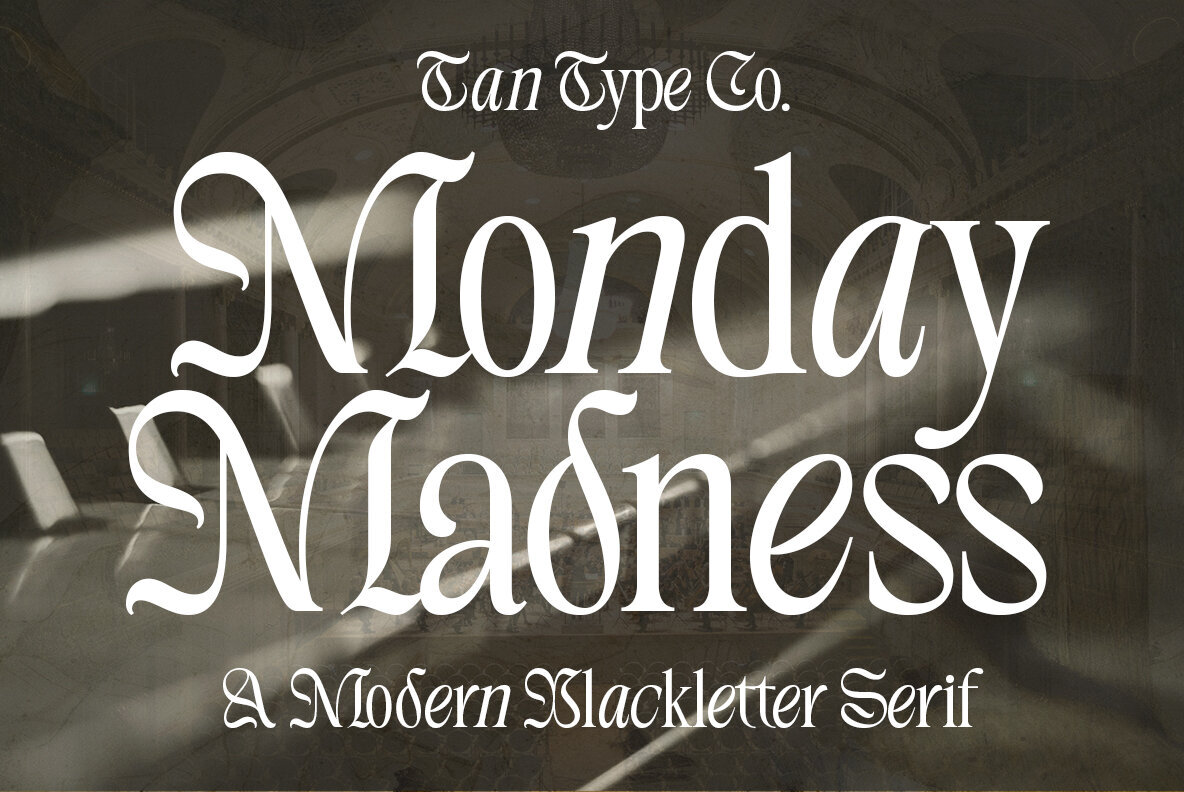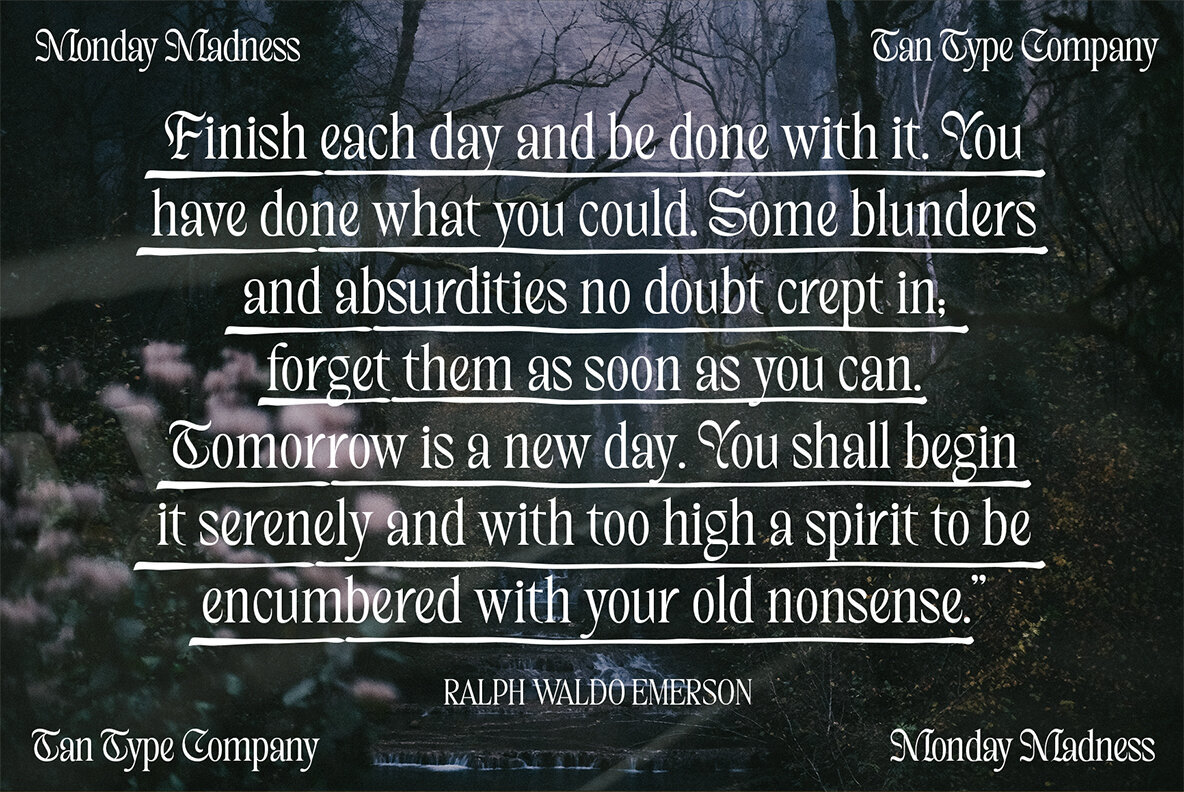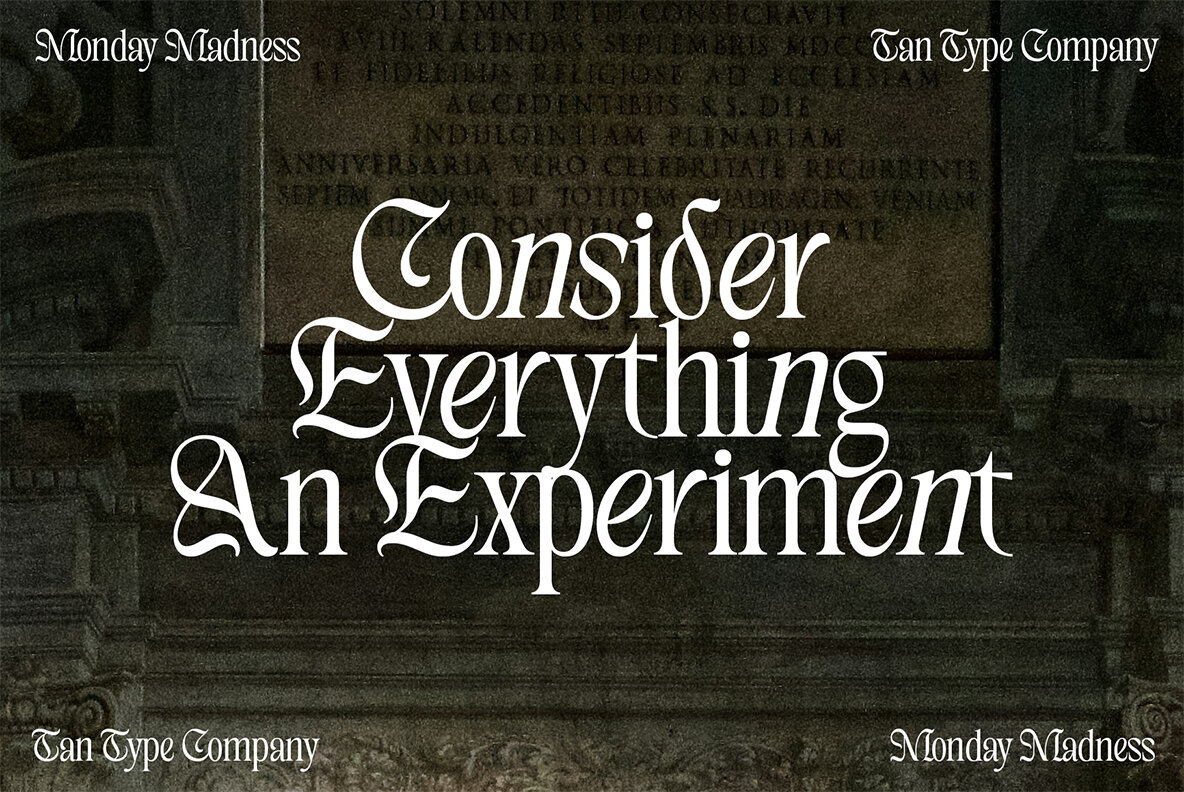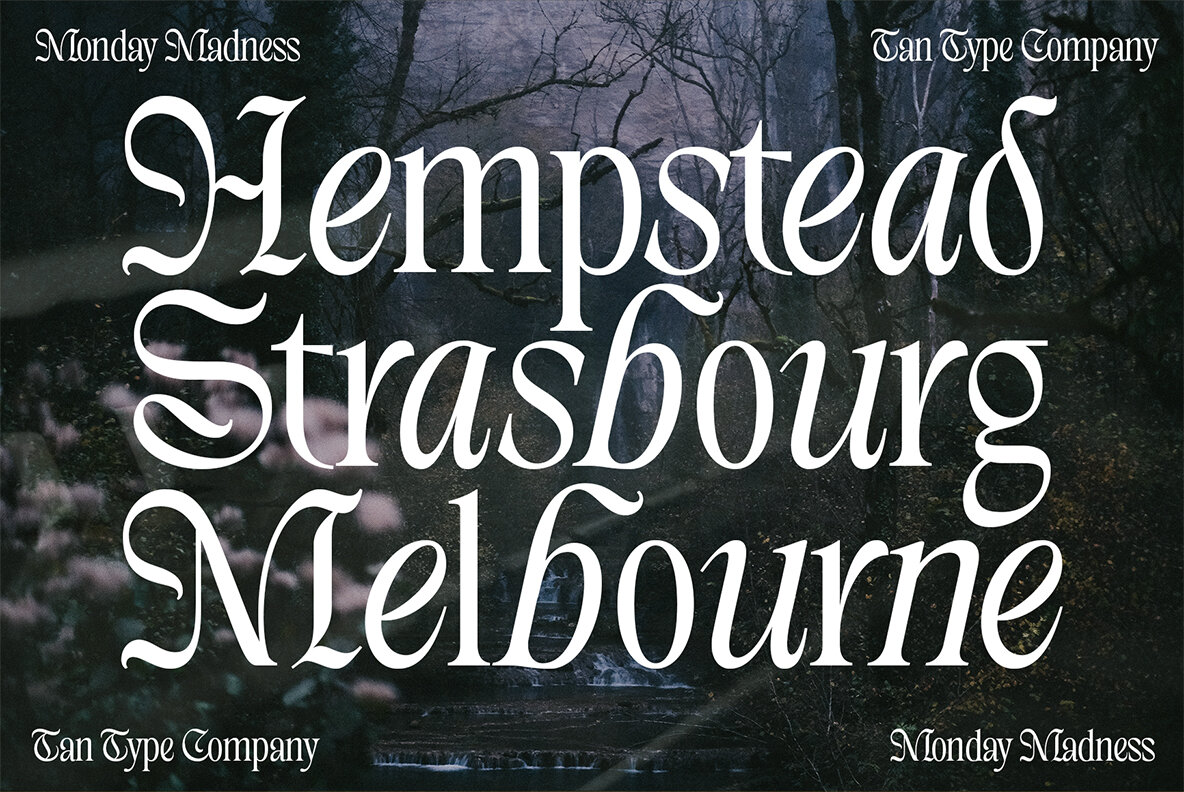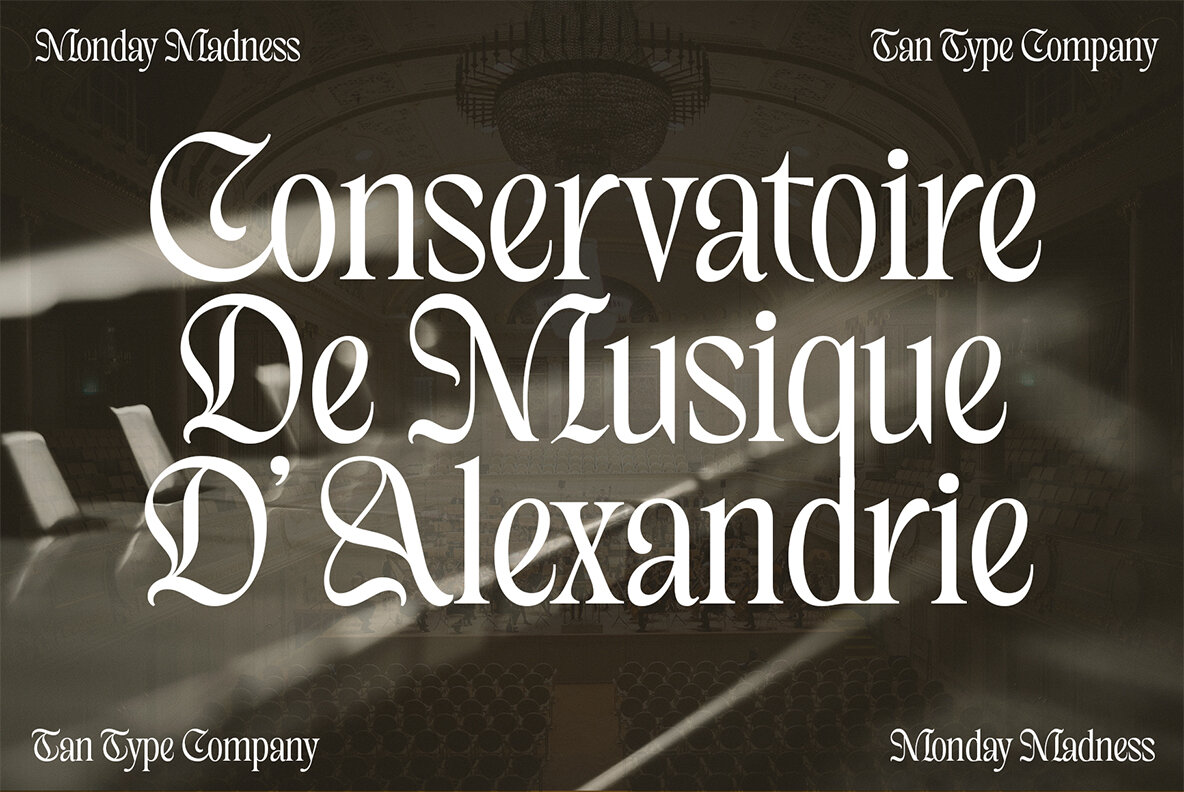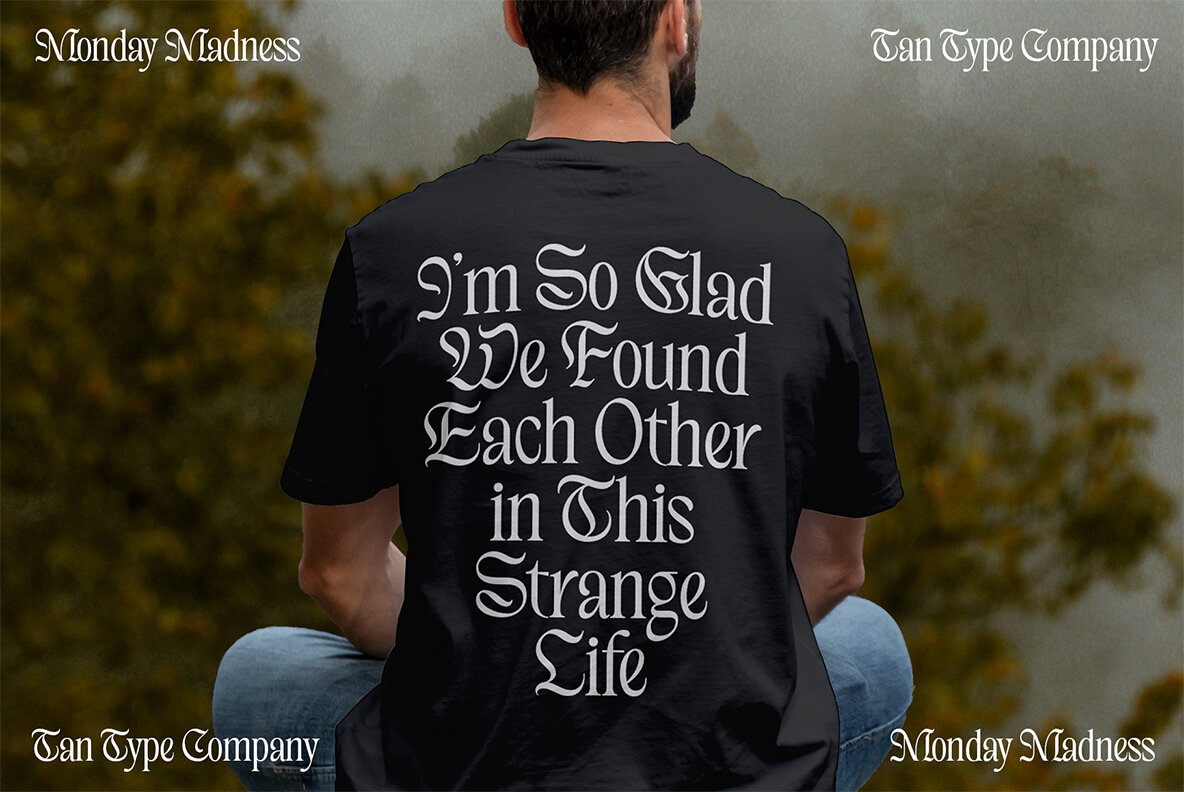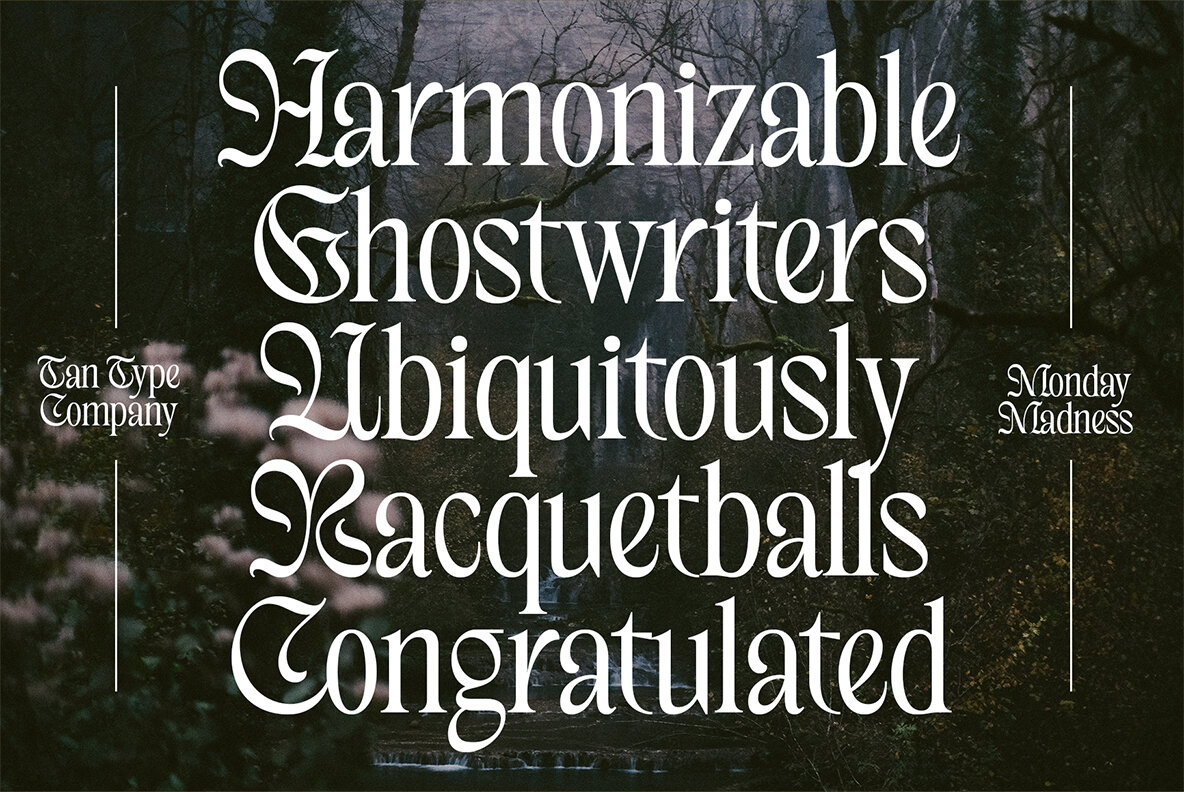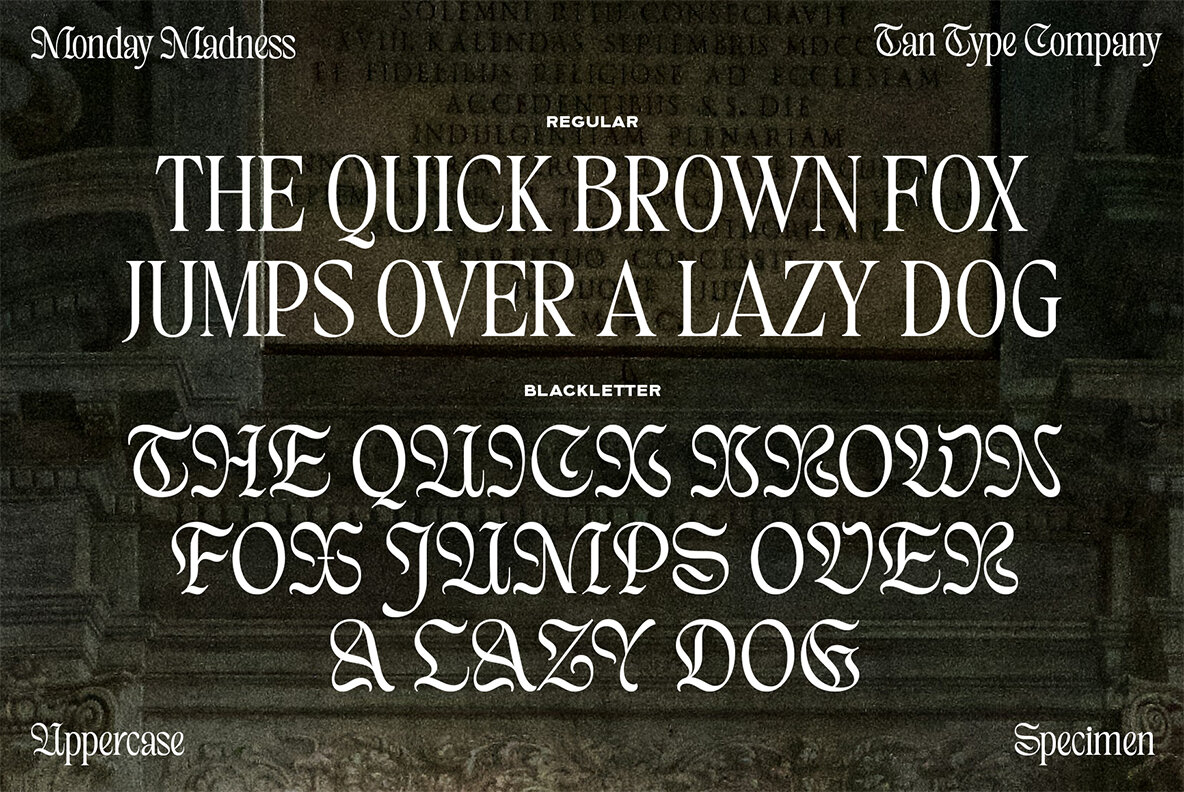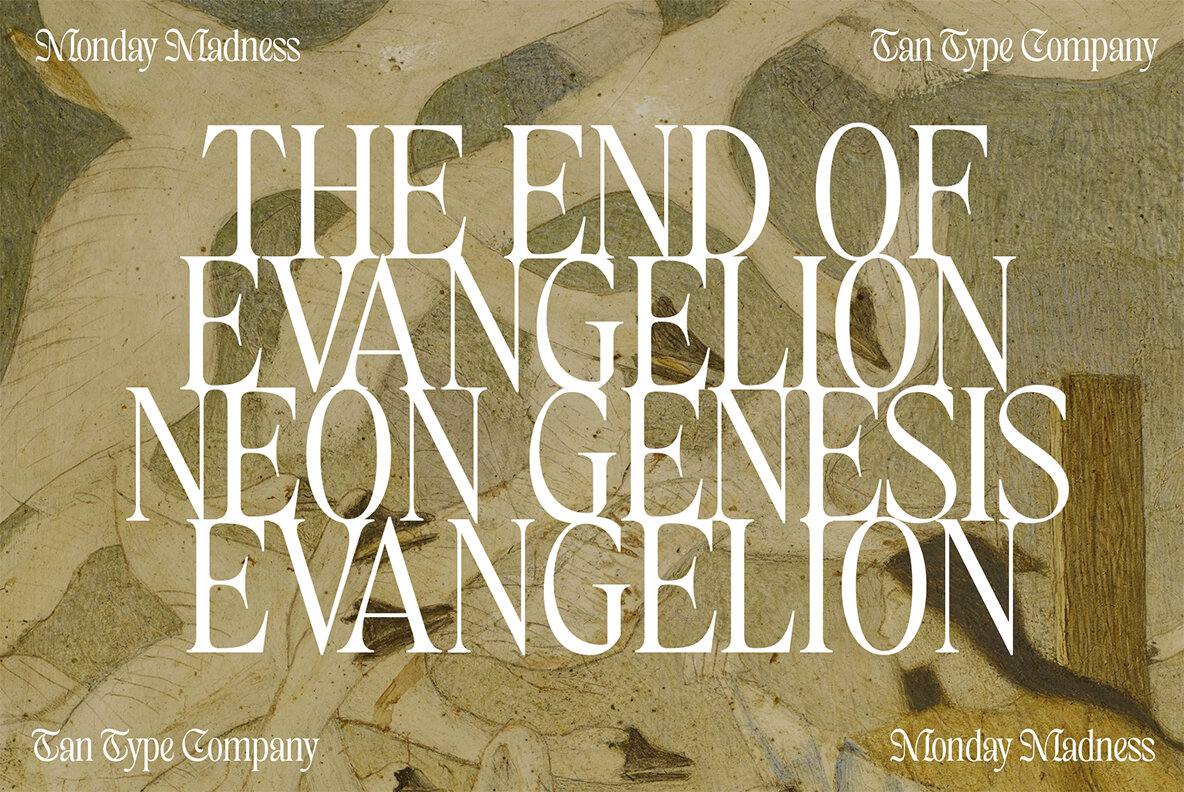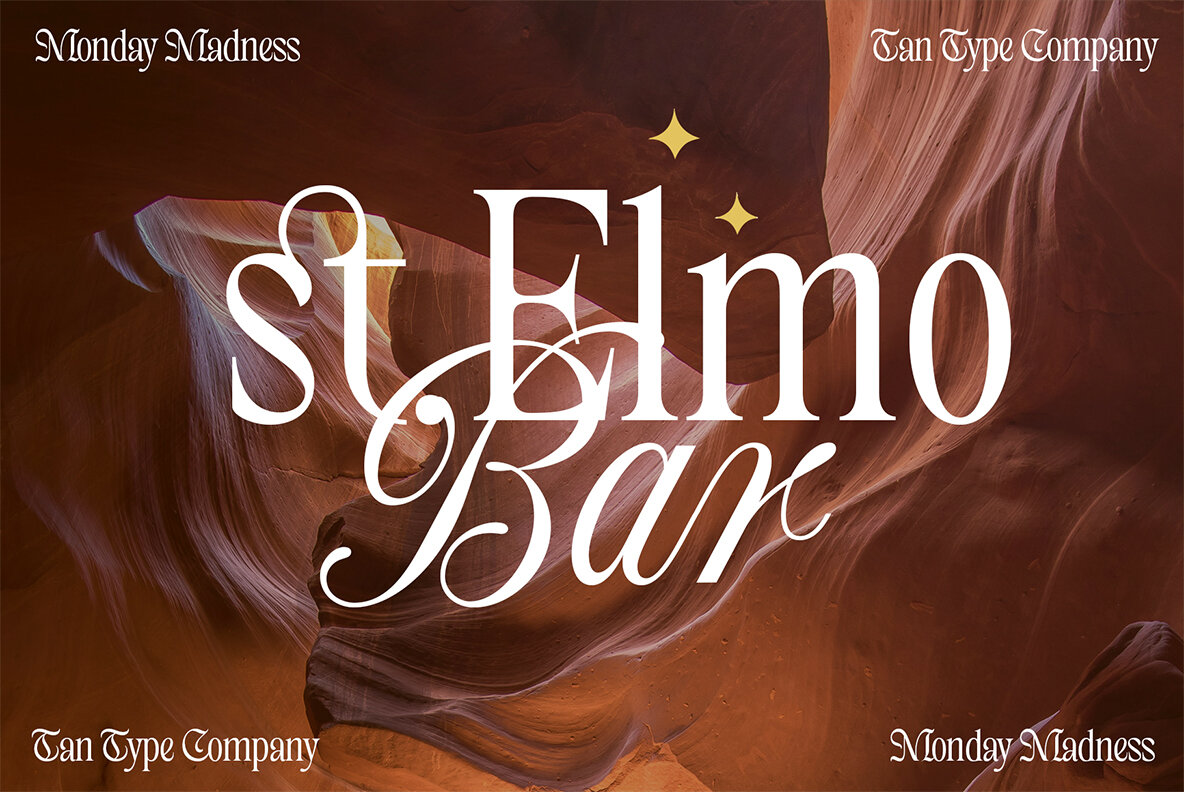
TAN - MONDAY MADNESS Font
Discover the timeless appeal of modern typography with Monday Madness, a captivating blackletter serif font. Expertly designed, it merges the classical elegance of blackletter with a contemporary twist. This font features refined curves and clean lines that offer both sophistication and readability. Ideal for editorial layouts and branding projects, Monday Madness bridges the gap between artistic richness and functional clarity. Embrace the versatility of Monday Madness as it brings style and substance to your creative endeavors. Whether crafting vintage logos or elegant headlines, this font ensures your designs stand out beautifully.Monday Madness: A Modern Blackletter Serif
Versatile Features